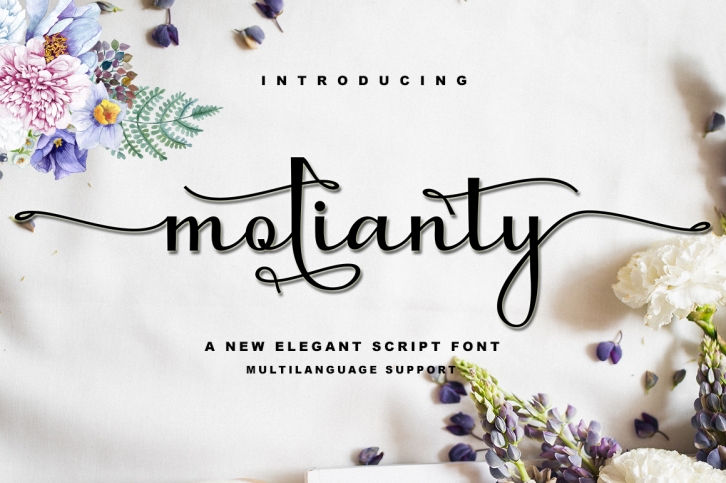
molianty Script is a gorgeous font that was realeased on June 25, 2019. The font can be used in many style contexts and design environments. Perfect for invitations, magazines, websites, logos, and more! It was designed by akifatype and the file size is 2.42 MB. Thanks for checking out this font!